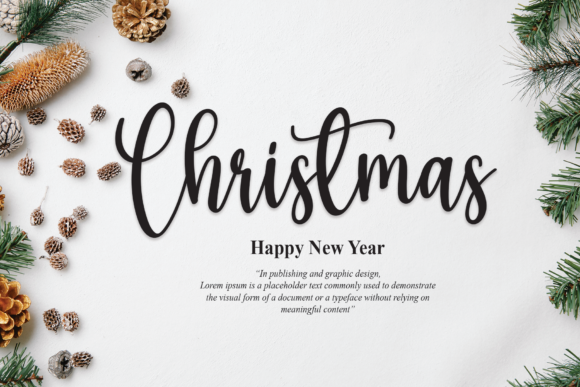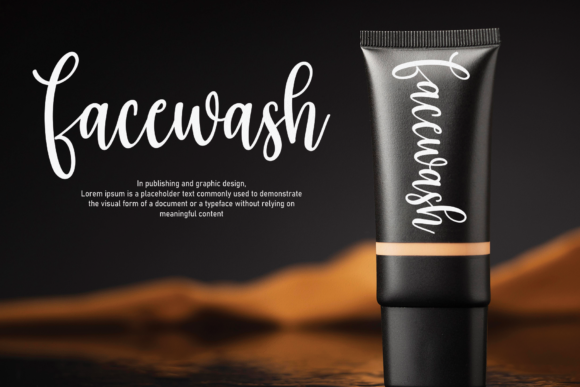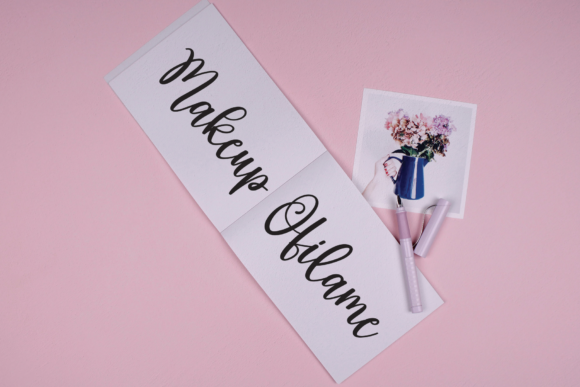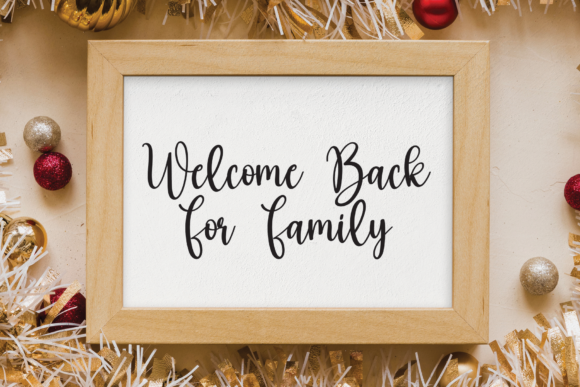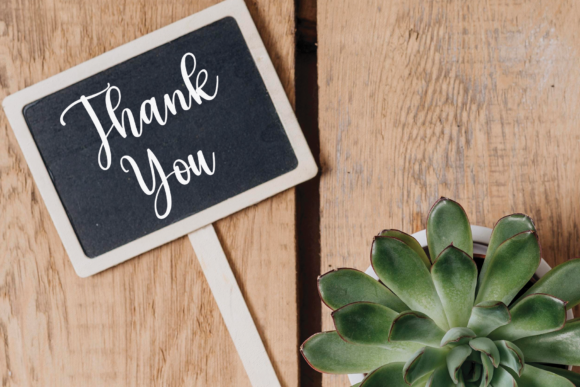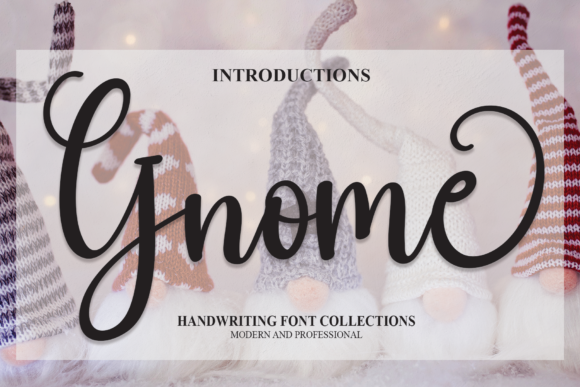
Gnome Font: Elevate Your Designs with a Beautifully Flowing Handwritten Style
Are you a designer or crafter looking for a font that can add a touch of elegance and sophistication to your projects? Look no further than the Gnome Font. This beautifully flowing and modern handwritten font is perfect for a wide range of applications, from wall displays and wedding invitations to social media post logos and product packaging.
What Makes Gnome Font So Special?
Gnome Font is a unique and stylish font that is sure to impress. Its flowing and modern handwritten style gives it a distinctive look that is both elegant and sophisticated. The font is highly versatile and can be used for a variety of projects, including:
- Wall displays and signage
- Social media post logos and graphics
- Advertisements and marketing materials
- Product packaging and design
- Labels and branding
- Photography and watermarks
- Invitations and event materials
- Stationery and paper products
Why Choose Gnome Font?
There are many reasons why Gnome Font is a great choice for designers and crafters. Here are just a few:
- Unique and eye-catching: Gnome Font has a distinctive look that is sure to grab attention and make your designs stand out.
- Highly versatile: The font can be used for a wide range of projects and applications, making it a great addition to any designer’s toolkit.
- Elegant and sophisticated: Gnome Font has a flowing and modern handwritten style that gives it an air of elegance and sophistication.
- Easy to read: Despite its elegant style, Gnome Font is highly legible and easy to read, making it perfect for use in a variety of contexts.
How to Use Gnome Font in Your Designs
Using Gnome Font in your designs is easy. Here are a few tips to get you started:
- Experiment with different sizes: Gnome Font looks great in a variety of sizes, from large and bold to small and delicate.
- Play with colors: The font looks great in a range of colors, from bright and bold to pastel and subtle.
- Use it as a headline font: Gnome Font is perfect for use as a headline font, adding a touch of elegance and sophistication to your designs.
- Pair it with other fonts: Gnome Font pairs well with a range of other fonts, making it easy to create visually interesting and dynamic designs.
Tips and Tricks for Working with Gnome Font
Here are a few tips and tricks to help you get the most out of Gnome Font:
- Use it sparingly: While Gnome Font is a beautiful font, it can be overwhelming if used too much. Use it sparingly to add a touch of elegance and sophistication to your designs.
- Experiment with different styles: Gnome Font has a range of different styles and variations, so don’t be afraid to experiment and try out different looks.
- Pay attention to kerning: As with any font, pay attention to kerning to ensure that your text looks professional and polished.
Gnome Font is a beautifully flowing and modern handwritten font that is perfect for designers and crafters looking to add a touch of elegance and sophistication to their projects. With its highly versatile style and ease of use, it’s a great addition to any designer’s toolkit. Whether you’re working on a wedding invitation, social media post, or product packaging, Gnome Font is sure to impress.